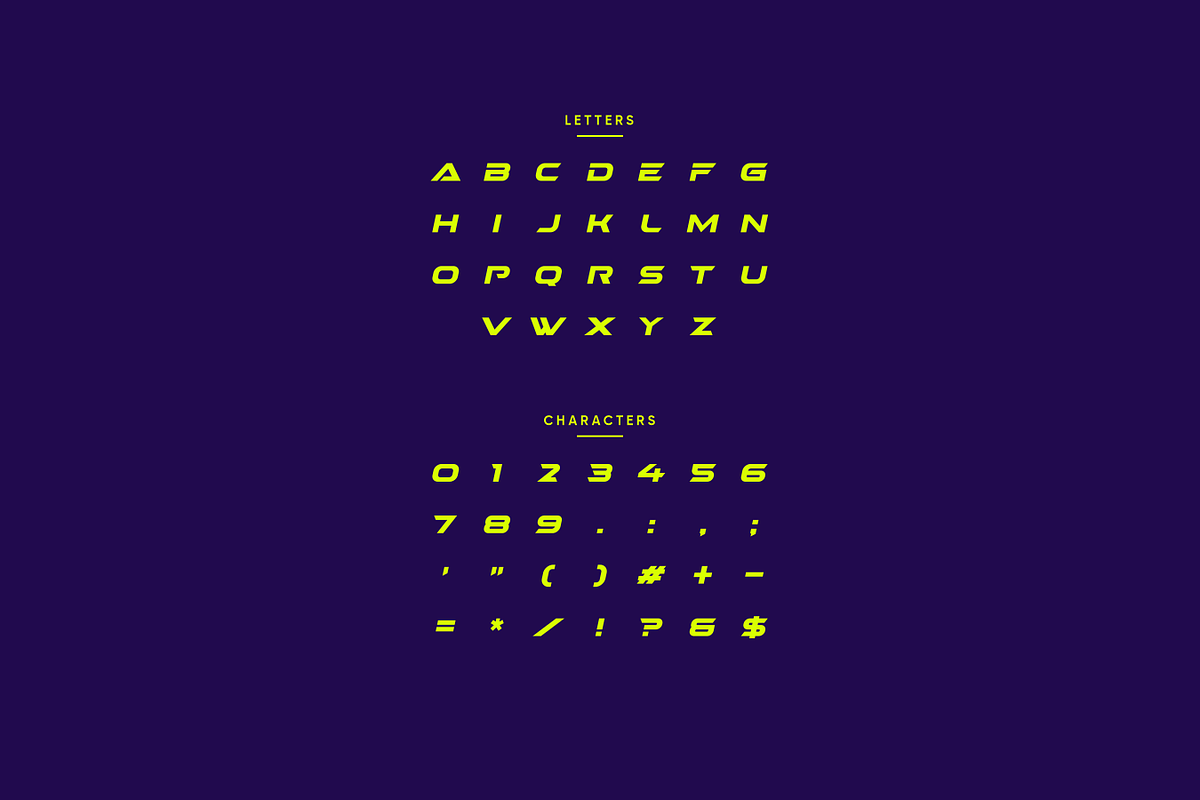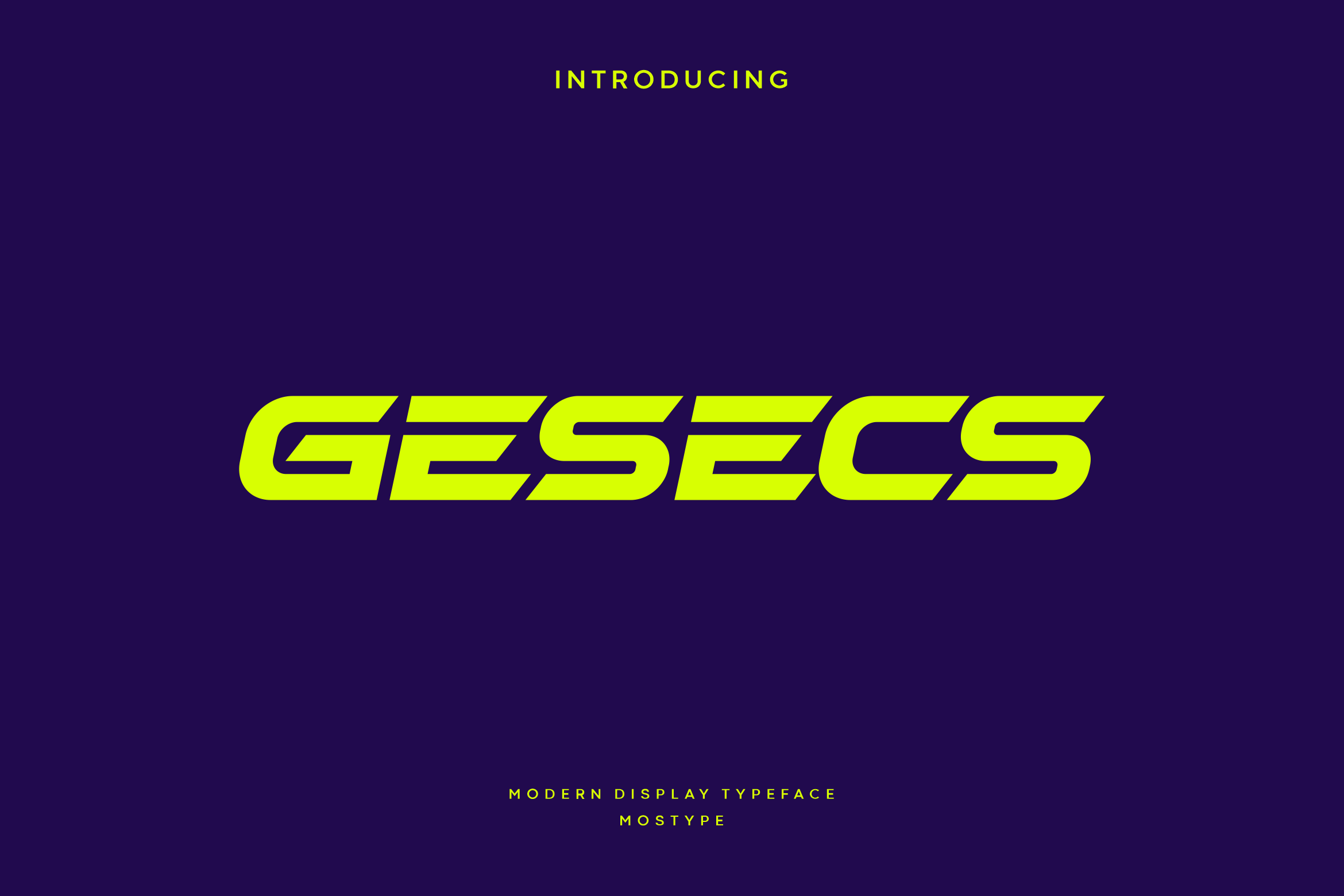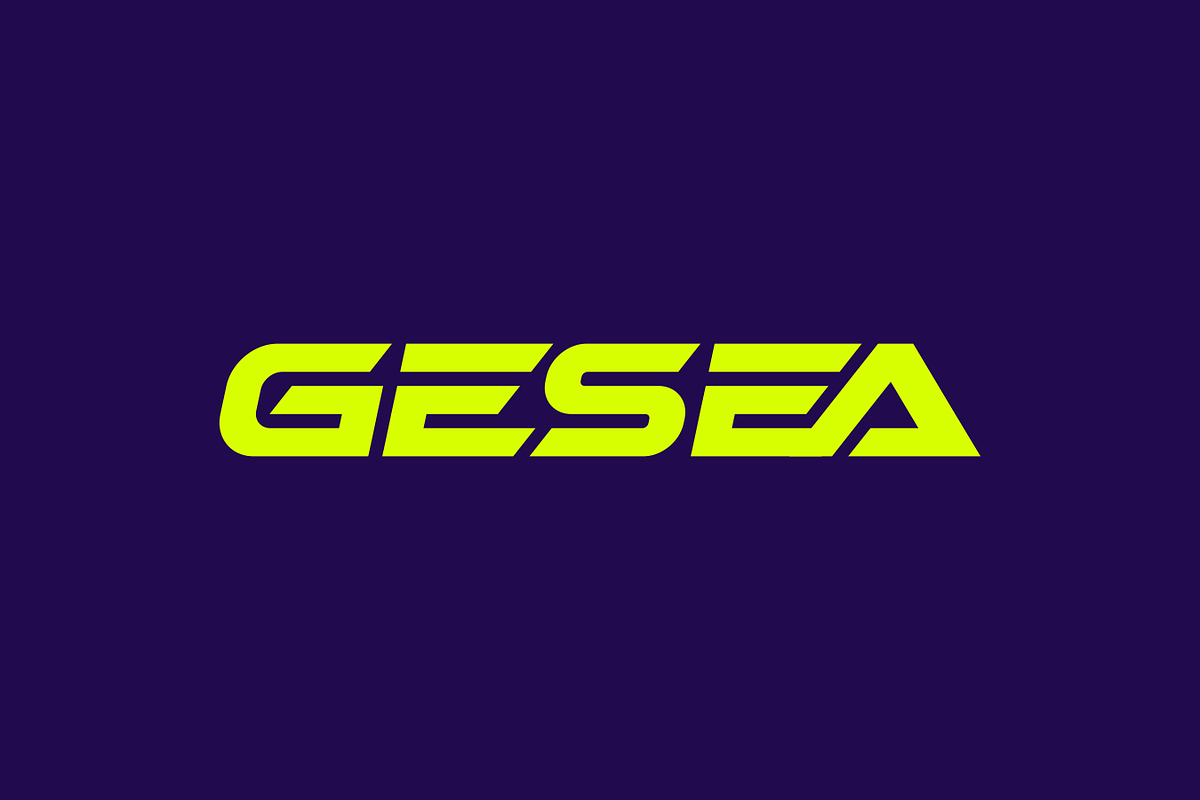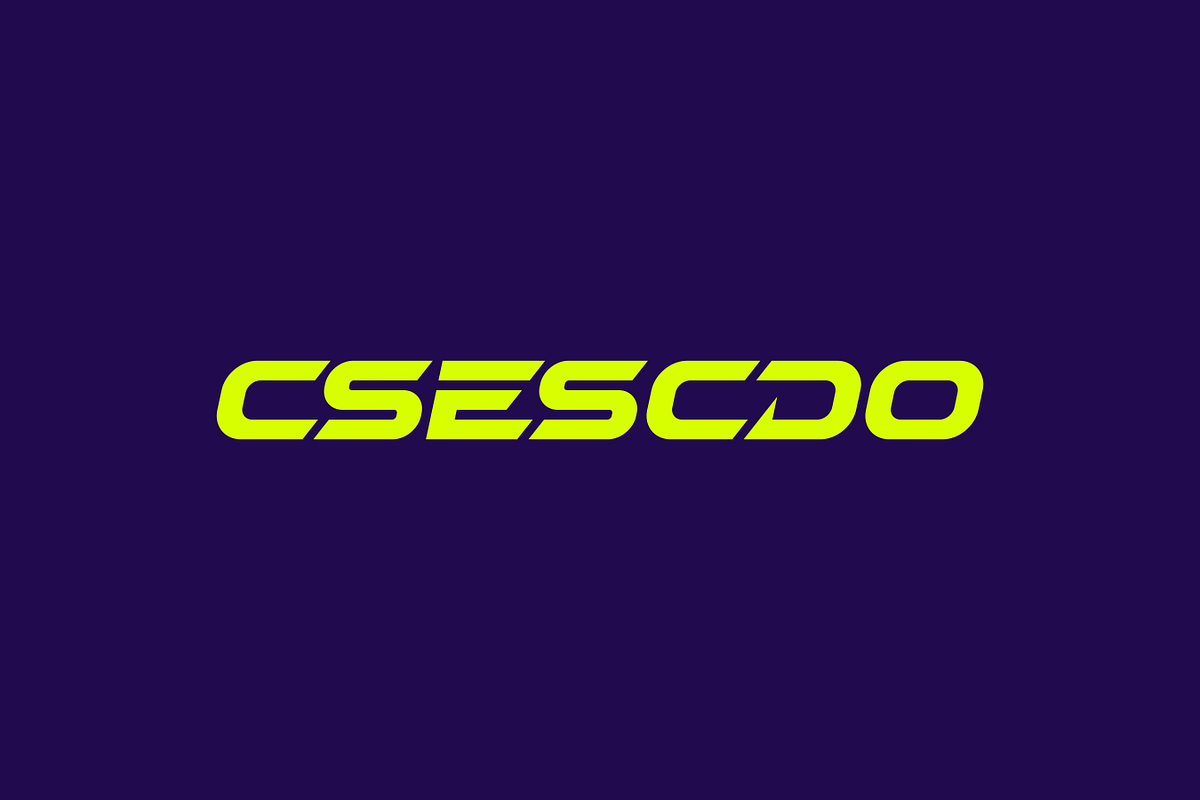
Gesecs - Modern Display Typeface
Gesecs is a meticulously crafted typeface designed specifically for logo, branding, headers, and titling. With precise spacing tailored for impactful logo and branding materials, this font ensures your designs make a lasting impression. Please note, this font is not suitable for body text, but excels in visual application where every detail matters. Elevate your design projects with this font today.